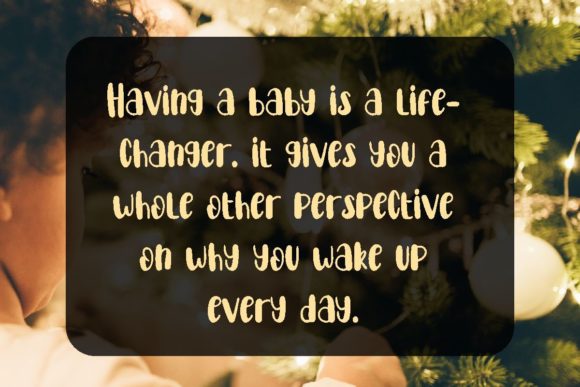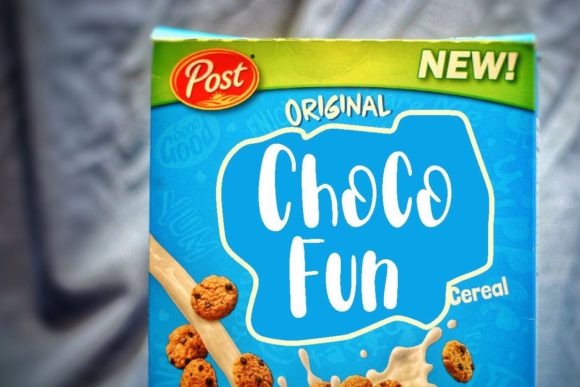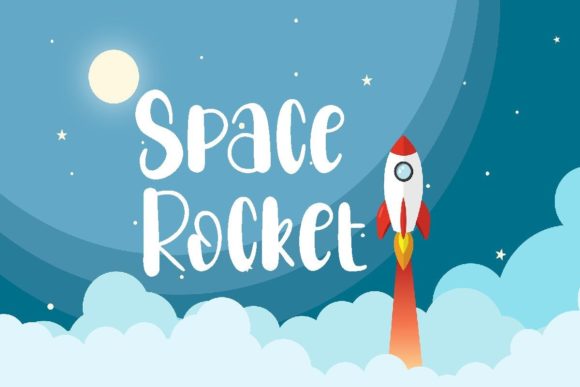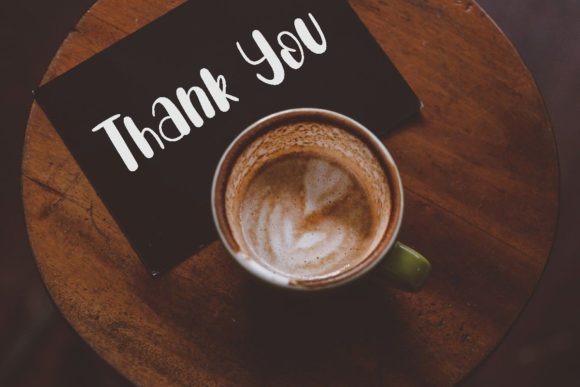
Baby Trees Font: The Ultimate Choice for Designers and Crafters
In the world of typography, fonts play a crucial role in conveying messages, expressing emotions, and creating visual identities. For designers and crafters, finding the perfect font can be a daunting task, especially when it comes to creating eye-catching logos, branding, and quotes. This is where Baby Trees Font comes in – a fun, handwritten font with a unique style that’s sure to make your designs come alive!
What is Baby Trees Font?
Baby Trees Font is a carefully crafted, handwritten font that boasts a distinct and beautiful touch. Every letter is designed to add a personal touch to your designs, making it perfect for creating logos, branding, and quotes that stand out from the crowd. The font’s unique style is a perfect blend of playfulness and elegance, making it suitable for a wide range of design projects.
Key Features of Baby Trees Font
• Unique Style: Baby Trees Font has a one-of-a-kind style that’s both fun and elegant, making it perfect for designers and crafters looking for something new and exciting.
• Handwritten Touch: The font’s handwritten touch adds a personal and emotional feel to your designs, making them more relatable and engaging.
• Distinct Letters: Every letter in the Baby Trees Font has a distinct and beautiful touch, ensuring that your designs stand out from the crowd.
Why Choose Baby Trees Font?
So, why should designers and crafters choose Baby Trees Font over other fonts? Here are just a few reasons:
• Eye-Catching Designs: The font’s unique style and handwritten touch make it perfect for creating eye-catching logos, branding, and quotes that grab attention.
• Versatility: Baby Trees Font is suitable for a wide range of design projects, from digital designs to print materials.
• Emotional Connection: The font’s handwritten touch helps create an emotional connection with your audience, making your designs more relatable and engaging.
Design Ideas Using Baby Trees Font
Now that you have Baby Trees Font, here are some design ideas to get you started:
• Logos: Create eye-catching logos for your business or brand using Baby Trees Font.
• Branding: Use the font to create consistent branding across all your marketing materials.
• Quotes: Design inspiring and motivational quotes using Baby Trees Font.
• Social Media Graphics: Create engaging social media graphics using the font.
Here are some tips and tricks to help you get the most out of Baby Trees Font:
• Experiment with Colors: Try out different colors and color combinations to add depth and interest to your designs.
• Play with Sizes: Experiment with different font sizes to create visual hierarchy and emphasis.
• Add Texture: Add texture to your designs using Baby Trees Font to give them a more organic feel.
In conclusion, Baby Trees Font is a fun, handwritten font with a unique style that’s perfect for designers and crafters looking to create eye-catching logos, branding, and quotes. With its distinct and beautiful touch, ease of use, and versatility, Baby Trees Font is an excellent choice for any design project. So why wait? Download Baby Trees Font today and start creating stunning designs that come alive!